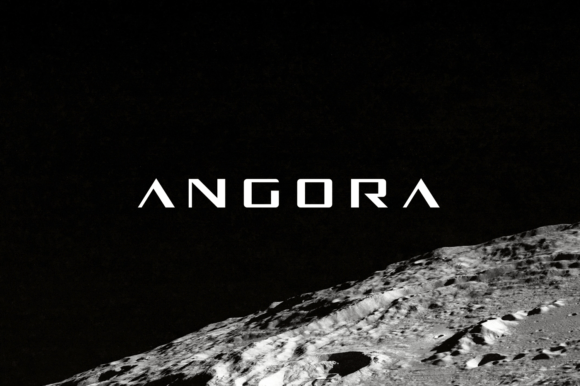
The Angora Font: A Bold and Modern Choice for Creative Projects
I’ll never forget the time I was working on a branding project for a fashion startup, and I just couldn’t find the right font to capture their edgy, modern vibe. The client wanted something bold, yet elegant, and I was determined to deliver. That’s when I stumbled upon the Angora font, and it instantly became the perfect fit. In this article, I’ll share my experience with this amazing font, its features, and how to make the most of it in your designs.
An Honest Review of Angora Font
What I Love About Angora Font
- ✨ Bold and modern look: Angora font is perfect for making a statement in your designs. Its sleek lines and curves give it a fresh, contemporary feel that’s hard to ignore.
- ✅ Versatility: This font pairs well with a wide range of font types, making it easy to mix and match with other fonts in your design.
- 💻 Perfect for digital and print: Whether you’re designing a logo, brochure, or social media post, Angora font looks great in both digital and print formats.
While Angora font is an excellent choice for many projects, there are a few things to keep in mind:
- 🤔 Legibility at small sizes: Like many bold fonts, Angora can become a bit tricky to read at very small sizes. Make sure to test it in different contexts to ensure it works for your project.
- ⚠️ Overuse: Due to its bold and attention-grabbing nature, it’s easy to overuse Angora font. Be mindful of using it sparingly to avoid overwhelming your design.
- Experiment with OpenType features, such as stylistic alternates and glyphs, to add more variety to your text.
The Story Behind Angora Font
Angora font was designed with the modern creative in mind. Its sleek lines and bold curves are inspired by the latest fashion and tech trends. The designer aimed to create a font that’s both stylish and versatile, perfect for a wide range of projects.
Q: What type of projects is Angora font best suited for?
A: Angora font is perfect for logos, branding projects, hi-tech brands, t-shirt designs, fashion brands, posters, banners, streetwear designs, and more.
Q: Is Angora font available in different weights or styles?
A: Angora font comes in a range of weights and styles, making it easy to use in different contexts and designs.
Q: Can I use Angora font for both digital and print projects?
A: Absolutely! Angora font looks great in both digital and print formats, making it a versatile choice for a wide range of projects.